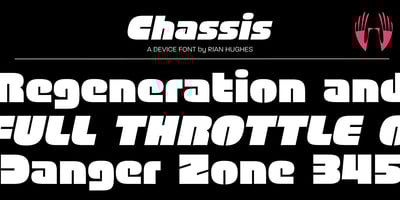
Chassis Font Family was designed by Rian Hughes and published by Device. Chassis contains 2 styles and family package options. A hefty, powerful geometric sans with weight and presence. The unusual counters are defined by lines which cut into the letter shapes.